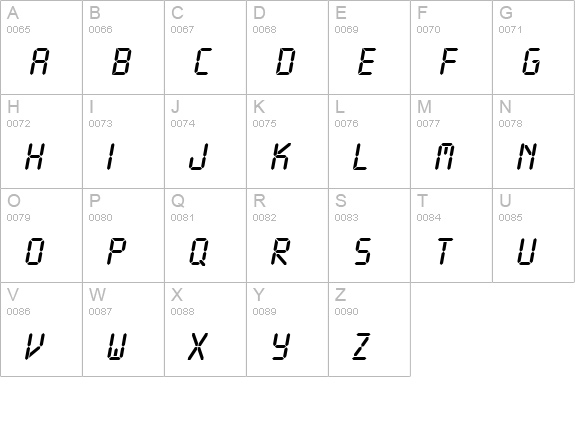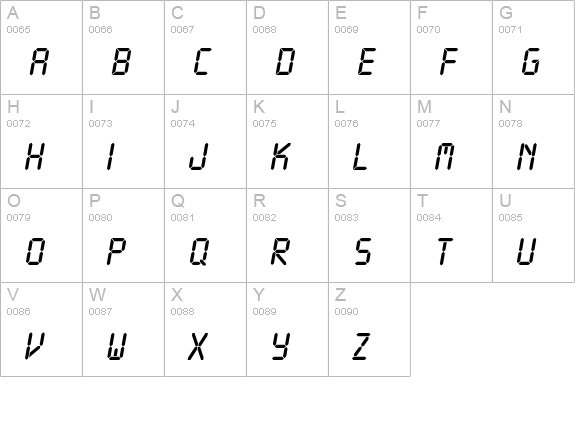
The LCD font is a stunning typeface that brings a modern and sleek aesthetic to any design project. With its clean lines and sharp edges, this font is perfect for creating a futuristic or tech-inspired look. The LCD font features bold and easily readable characters, making it ideal for display purposes. What makes this font even more appealing is that it is available for free! You can easily download the LCD font at FontsMarket.com, a trusted website for high-quality fonts. Whether you are a designer looking to add a unique touch to your projects or an individual wanting to spice up your personal documents, this font is a must-have. This font offers endless possibilities for creative expression. Use it to design eye-catching logos, captivating headlines, or even create stunning digital displays. Its versatility and contemporary style make it suitable for a wide range of applications. With the LCD font, you can effortlessly create a professional and polished design without having to spend a fortune. So why wait? Download the LCD font for free at FontsMarket.com and unlock your creative potential today!